Or Type
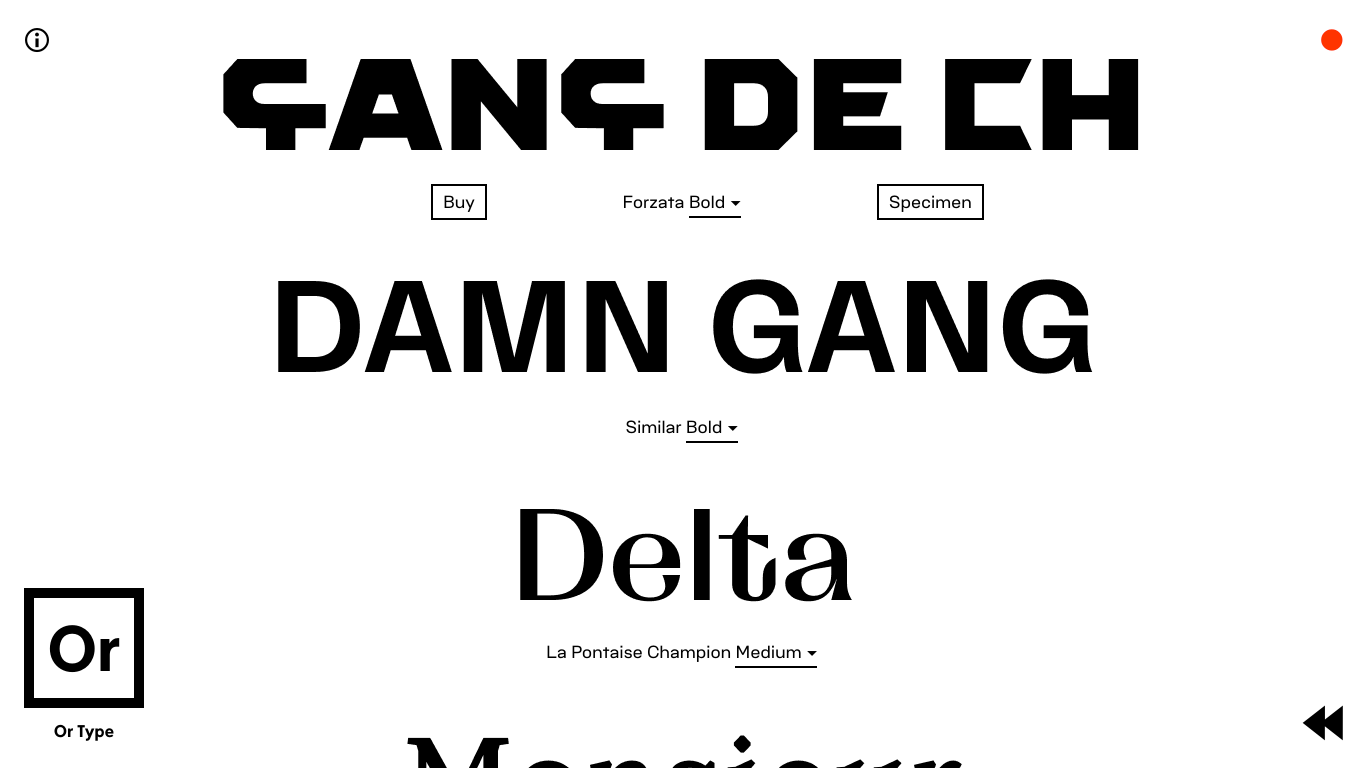
Iceland
2013
Or Type is an Icelandic type foundry founded in 2012 by Guðmundur Úlfarsson and Mads Freund Brunse. Operating between Reykjavík and Berlin, the studio is known for its experimental and contemporary approach to type design, often blurring the lines between graphic design and typography.
Notable typefaces from Or Type include Lÿno, Separat, and Jón Þór, which showcase their distinctive and unconventional design philosophy. Their work has been featured in various exhibitions and publications, reflecting their influence in the design community.
While specific client collaborations and awards are not detailed on their official website, Or Type's unique approach and contributions to type design have garnered attention and recognition within the industry. A unique aspect of Or Type is their commitment to pushing the boundaries of traditional type design, often incorporating elements of art and conceptual design into their work. This innovative approach sets them apart in the field of typography.